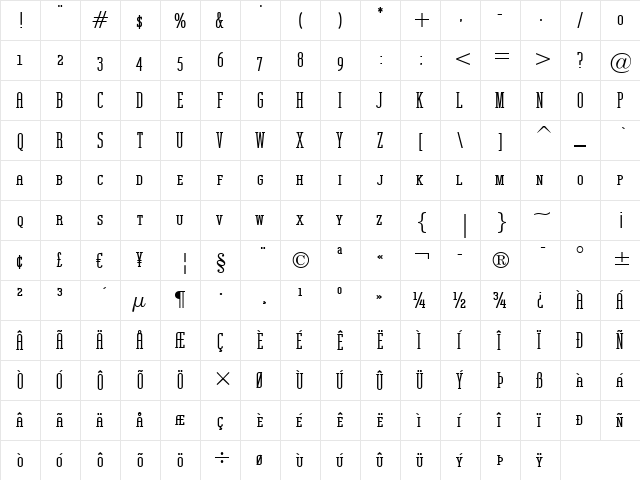
Unknown Caller BTN SC XBd Regular
Design Context for Unknown Caller BTN SC XBd Typeface
Unknown Caller BTN SC XBd offers clean, dependable letterforms without strong stylistic allegiance, making it a practical choice for designers who need flexibility. Its bold stroke weight gives it real presence on the page.